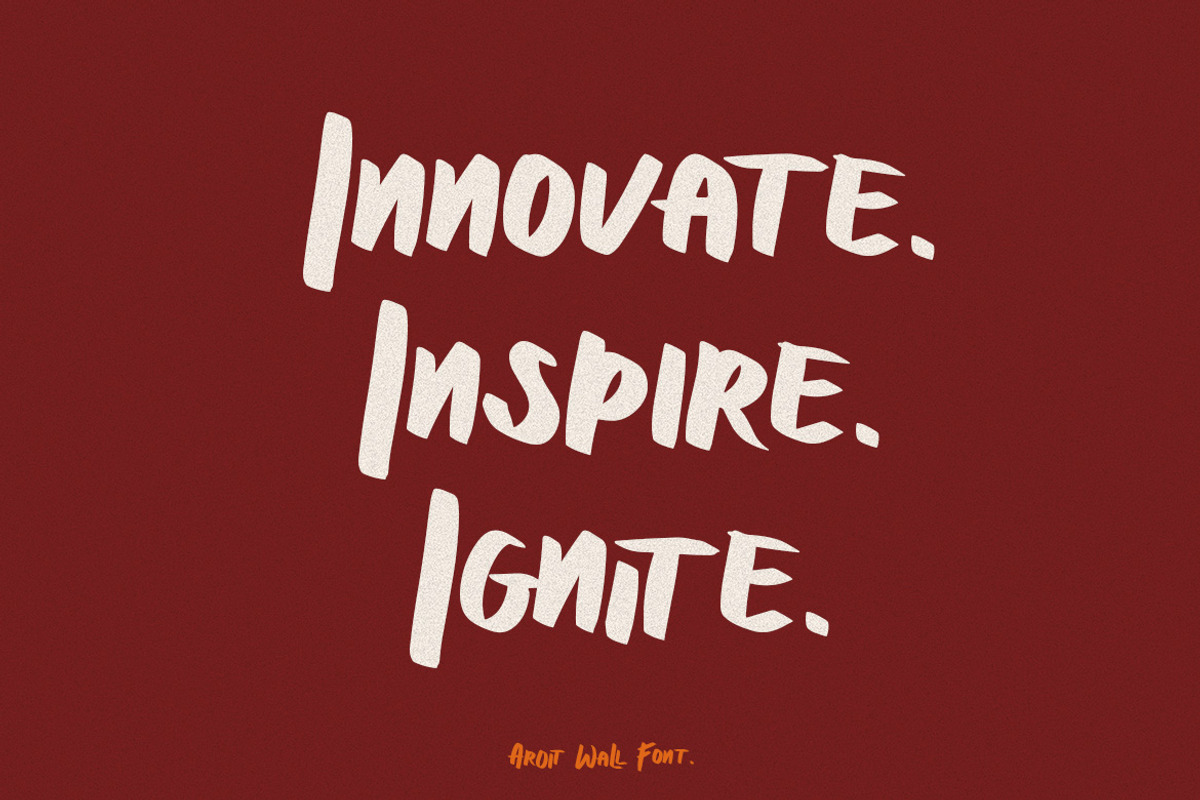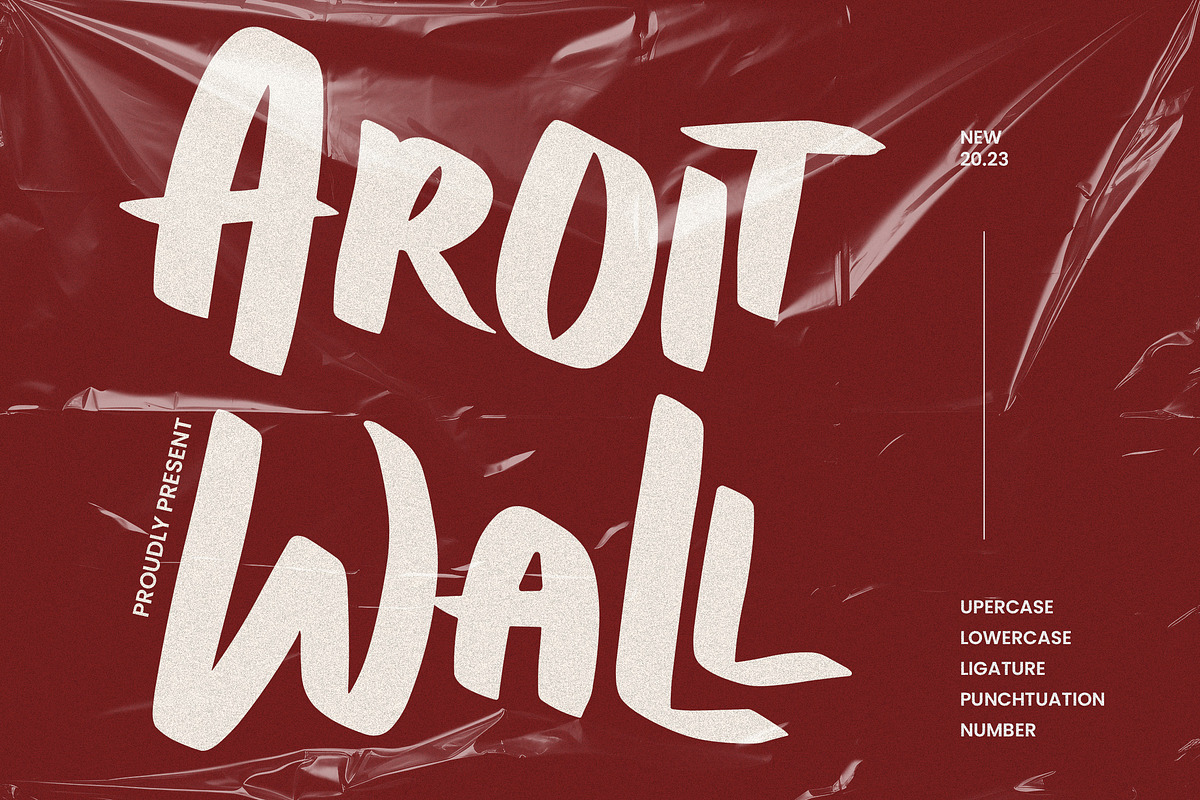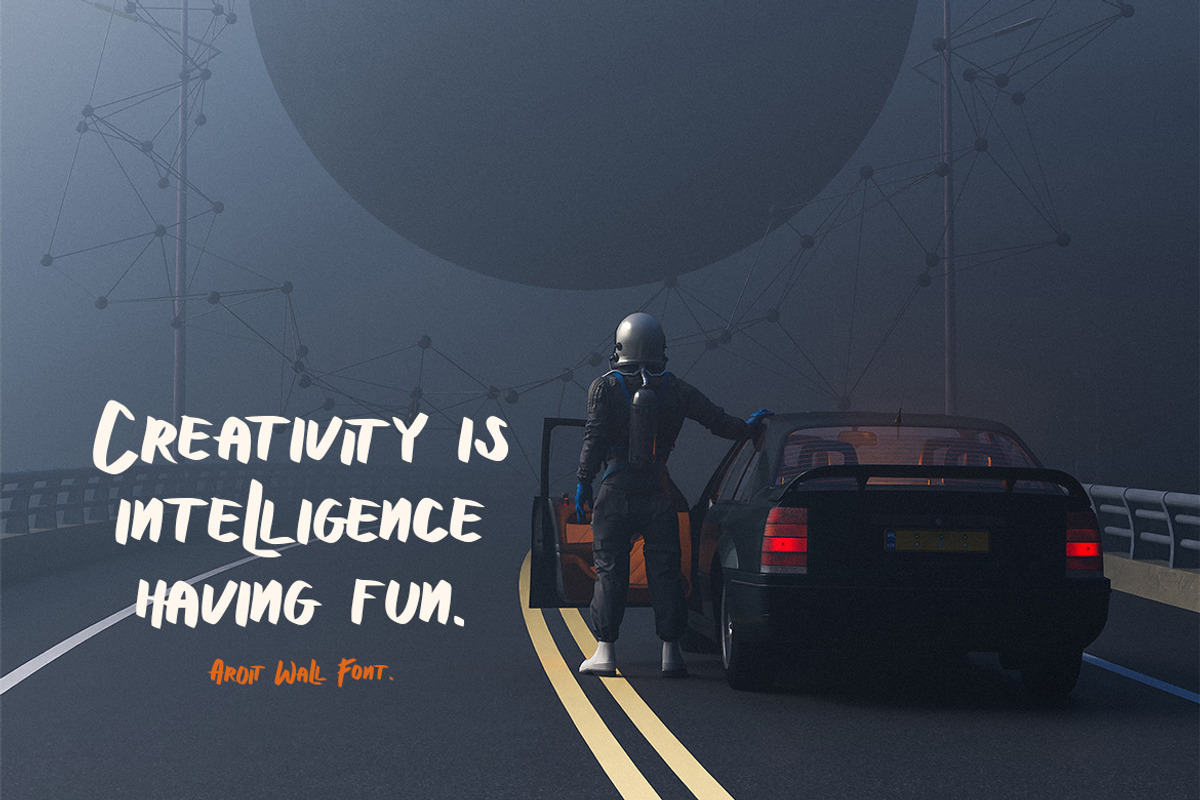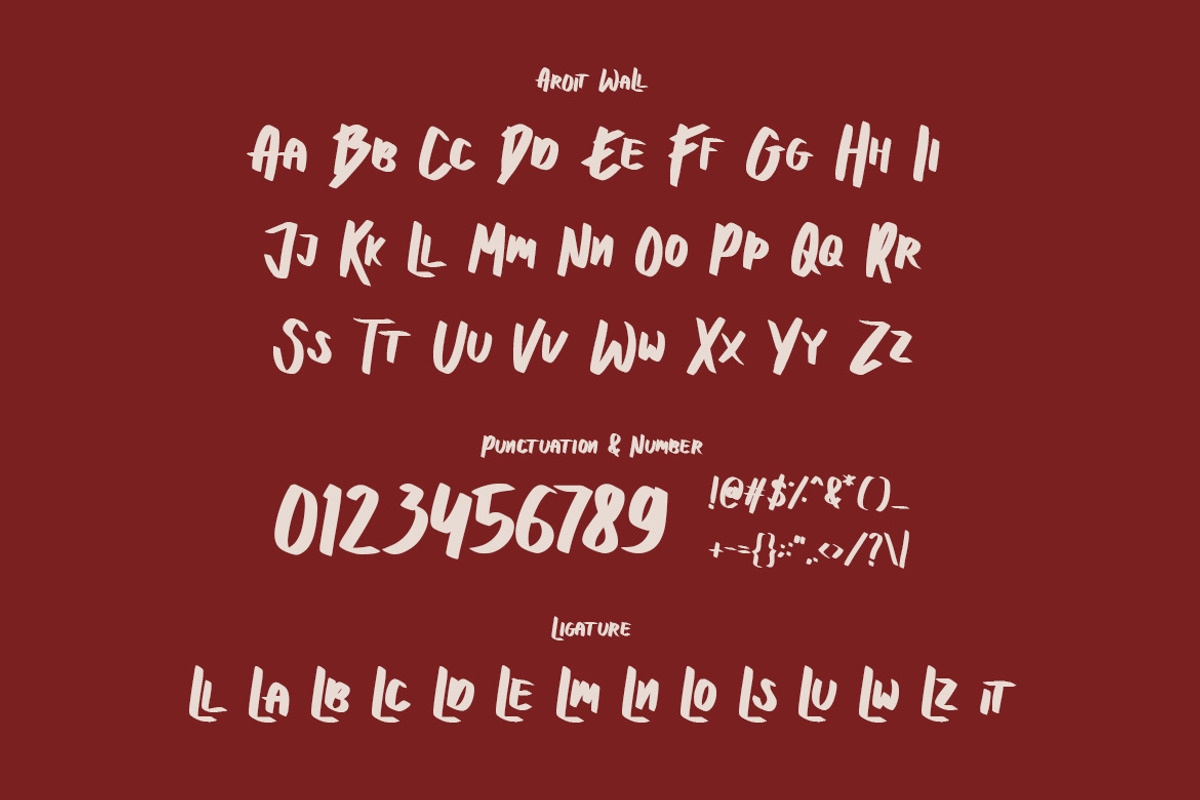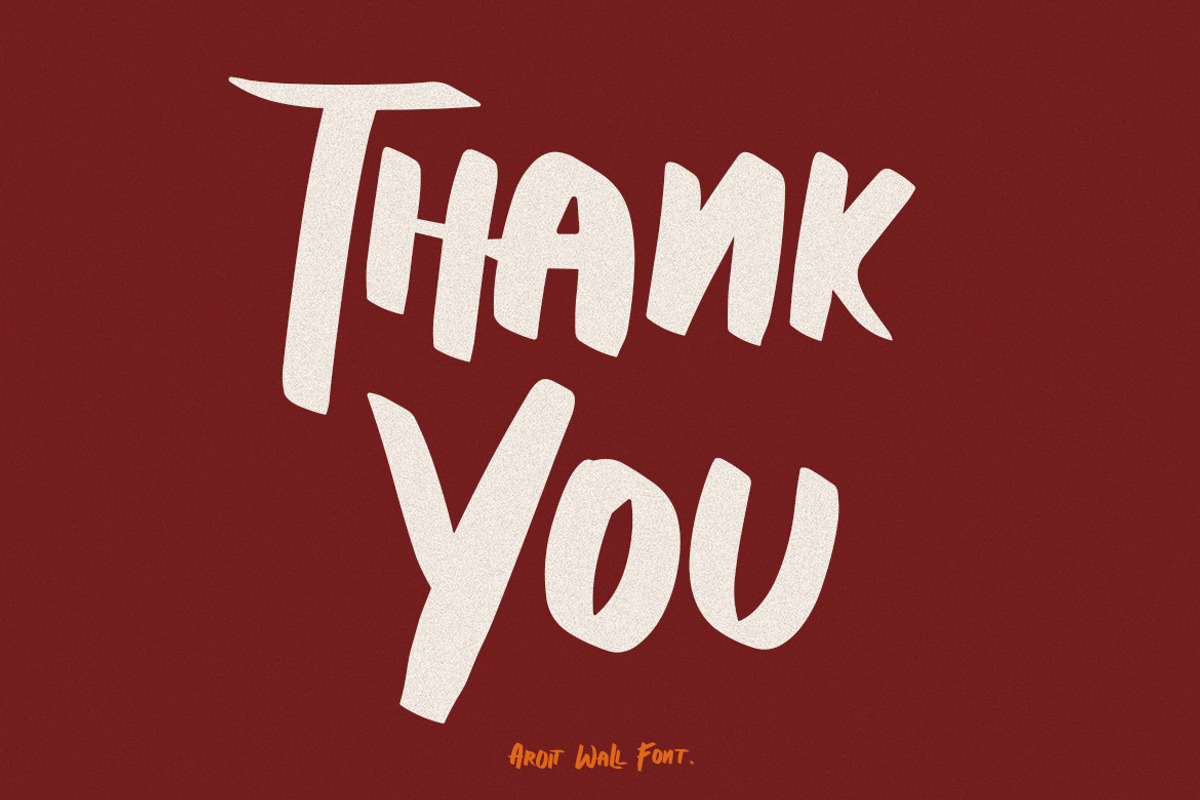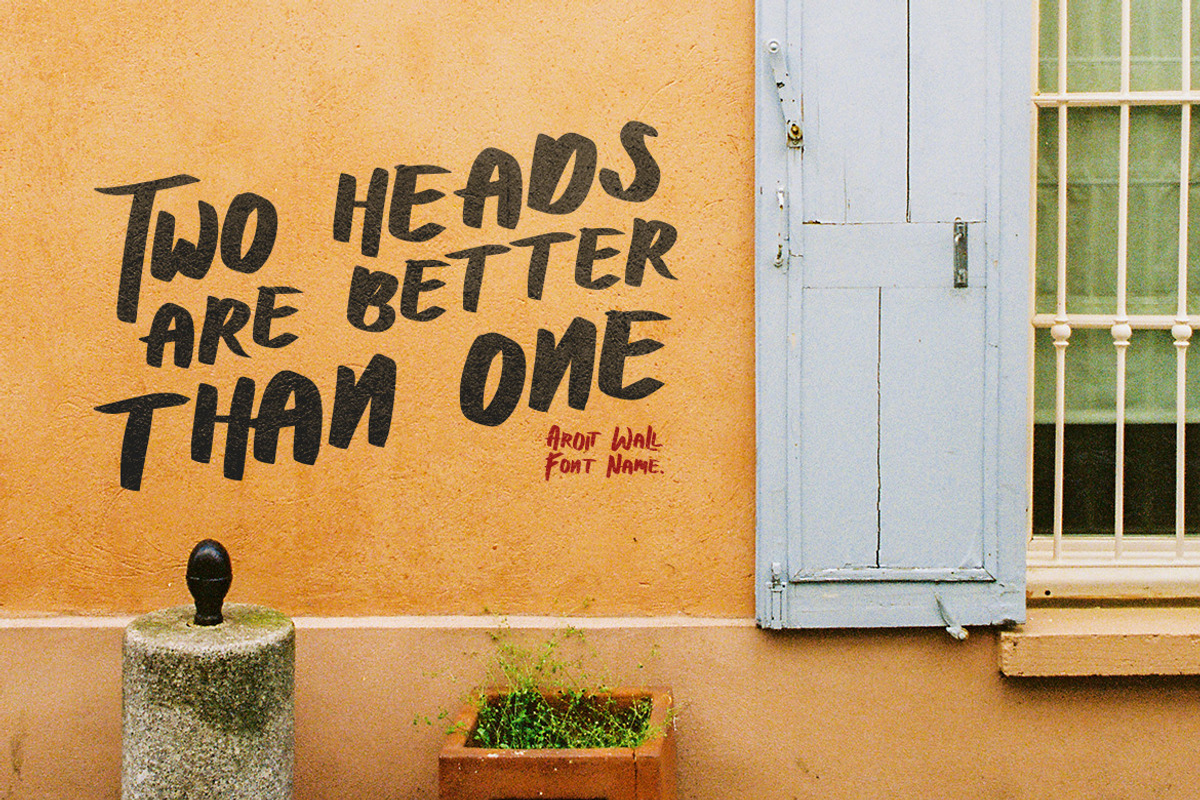
Aroit Wall - Modern Display Font
Aroit Wall is an awesome with modern cutouts, and a dynamic slant. Ideal for Poster titles, menu flyer, Packaging, Logo and monograms or other modern dynamic text. Aroit Wall compares favorably with legibility and size, creating the effect of power. Designed as a fast and dynamic font, but with a slightly different font design, check it out and grab it right away.